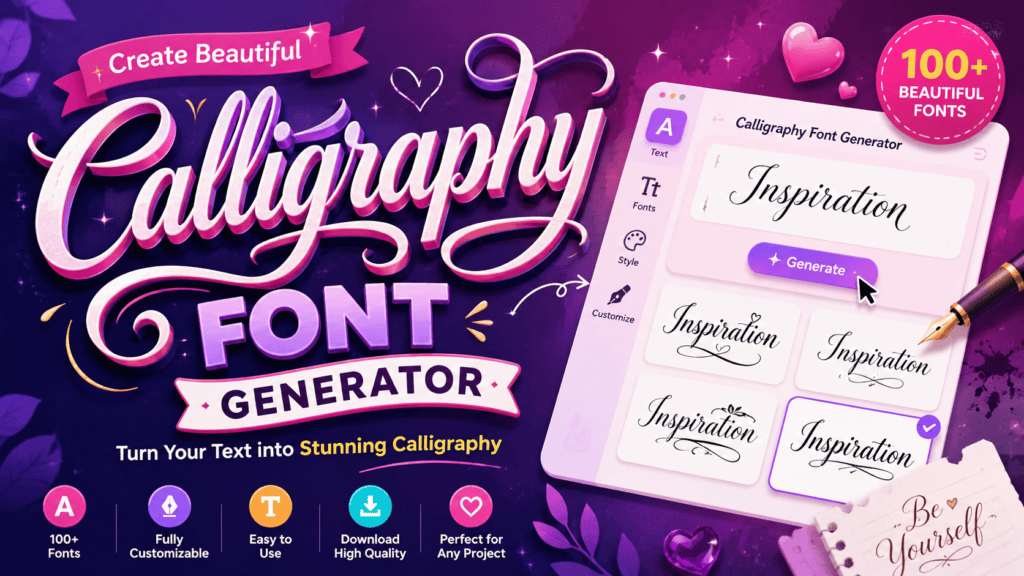
Calligraphy Font Generator
Few tools bridge art and accessibility like a calligraphy font generator. Rooted in thousands of years of history, calligraphy evolved from flat-tipped pens and brushes into a powerful online tool that transforms ordinary text beautifully.
Greek roots gave calligraphy its meaning — beautiful writing. Today’s aesthetics demand creativity and refinement, delivering pure beauty through elegant handwriting. A wide selection of free calligraphy fonts lets anyone skip expensive software and create instantly.
What Is a Calligraphy Font Generator?
Few realize a calligraphy font generator quietly challenged specialized calligraphy skills as gatekeepers. Once, flat-tipped pens and brushes defined elegant handwriting. Today, this powerful online tool transforms any plain text into decorative handwriting with grace.
Historically, Greek, Chinese, and Arabic traditions established geometrical order, lining, and precise stroke order. This tool honors their development through aesthetics and refinement, letting anyone copy paste calligraphy text across any device, browser, or platform.
How to Use the Calligraphy Font Generator
Working hands-on with the calligraphy font generator, I can confirm it’s genuinely easy to use. Enter your word, phrase, or message, browse font styles, pick your design, then copy and paste the result anywhere online.
Where Can You Use Calligraphy Fonts?
From social media posts to wedding invitations, calligraphy fonts transform ordinary text into eye-catching art. Whether for bios, brand slogans, or event invitations, these distinct styles instantly capture attention and deliver sophistication across every platform.
Marketing campaigns, emails, designs, store names, personal messages — calligraphy proves remarkably versatile. High-quality visuals using classic scripts or modern decorative styles elevate branding materials, website headers, and even digital use projects with exquisite handwritten fonts.
Tips for Using Calligraphy Fonts in Design
Elegant branding demands thoughtful font style selection. Combining traditional calligraphy with modern script styles enhances visual appeal across logo design and posters. Applying colors and text effects alongside handwriting transforms plain text into sophisticated artistry.
Stylish lettering in event invitations, business cards, and marketing materials communicates personality instantly. Use calligraphy text generator to explore stunning calligraphy styles without expensive software, matching elegant lettering styles to your theme for artistic value.
Calligraphy Fonts & Unicode — How It Works
Modern interaction involves unicode characters that map ordinary text into fancy writing styles. This calligraphy maker bypasses a download, creating beautiful writing where classical rules meet contemporary calligraphy for every page or style choice now.
My hand-lettering expertise shows that a calligraphy text generator utilizes script and cursive logic. These free fonts help celebrate significant occasions with pretty and dainty strokes, making plain words feel like pure beauty effortlessly online.
Email Signatures
Refining professional identity requires a signature generator that elevates mundane correspondence. Using stylish email signatures creates a distinct artistic writing style for every recipient. Such creative projects ensure high commercial usage standards within businesses.
Securing a proper font license remains vital for maintaining elegance in digital interactions. I often observe how generated images improve layout clarity. This specific font approach transforms basic email signatures into unique, highly professional assets.
Brand Slogans
Crafting an original logo design involves capturing human customer perception through typography. My experience suggests that elegant branding relies on brand messaging that feels personal. We use these fonts for product labels and packaging projects.
To draw attention to titles or subheadings, I select a visually interesting and ornate style. Use a serif or sans serif to balance a serious vibe or a casual look through these distinct artistic choices.
Privacy & Safety
Operating this generator ensures that all text inputs remain confidential during the styling process. We prioritize a safe environment where sensitive personal data is never stored on our servers or shared with external third-party tracking.I have analyzed how this calligraphygenerator handles creativity. Your text remains yours alone. Every input processed through the webbrowser stays temporary, ensuring no scriptsignaturegenerator ever logs your unique handwriting style privately.
What Is The Difference Between Calligraphy And Cursive Fonts?
While cursive emphasizes speed through connected letters, true calligraphy relies on history and strict rules for geometric shapes. My experience shows that handwritten-style strokes differ vastly from the disciplined, artistic precision of every intentional stroke.